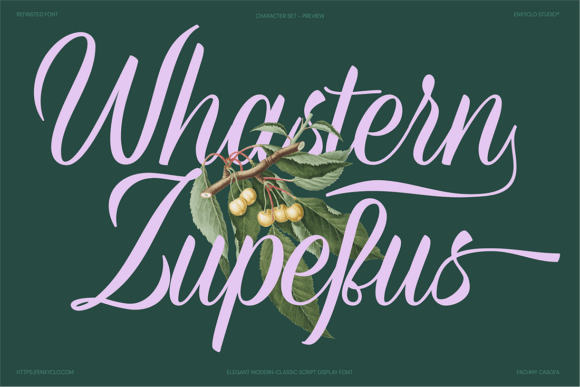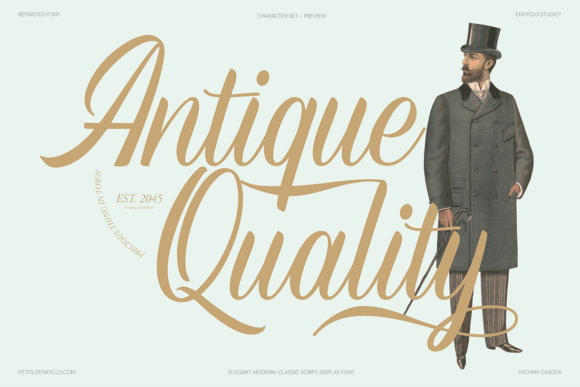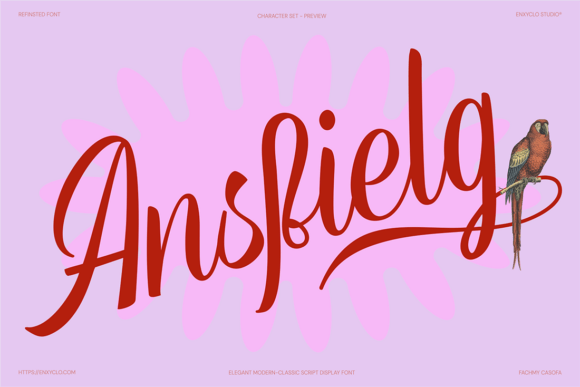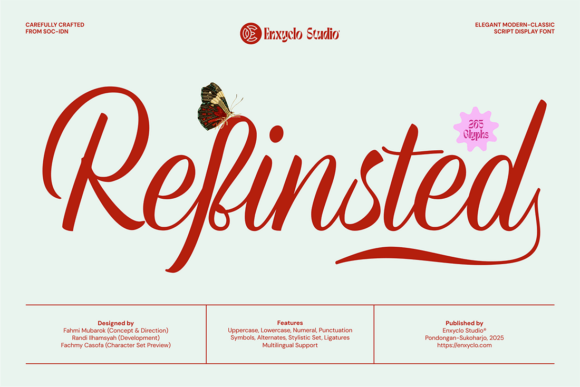
Introduction to Refinsted Font
Discover Refinsted, an exquisitely crafted script display font that marries modern sophistication with a touch of vintage allure.
Enxyclo Studio, with deep precision and passion, has designed this typeface to epitomize luxury, fluidity, and ageless grace Imagine a font that enhances every project it makes an appearance on – be it branding, editorial work, packaging, or bespoke invitations.
Key Features of Refinsted Font
Why Choose Refinsted Font?